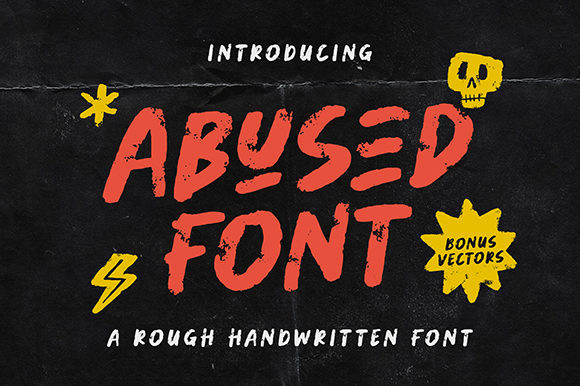
Introducing Abused Font: Unleash Your Designs with a Bold, Rough Textured Display Font
Are you tired of using the same old fonts in your designs? Do you want to add a touch of edginess and assertiveness to your creations? Look no further than Abused Font, a bold, rough textured display font that’s sure to take your designs to the next level. In this article, we’ll explore the features and benefits of Abused Font, and show you how to incorporate it into your design workflow.
What is Abused Font?
Abused Font is a display font that’s designed to make a statement. With its bold, rough textured style, it’s perfect for designers who want to add a touch of grit and attitude to their designs. Whether you’re working on a branding project, a poster, or a website, Abused Font is sure to grab attention and leave a lasting impression.
Key Features of Abused Font
- Bold and Assertive: Abused Font is a bold font that’s designed to make a statement. Its rough textured style gives it a unique, edgy look that’s sure to grab attention.
- Rough Textured Style: The rough textured style of Abused Font gives it a worn, distressed look that’s perfect for designers who want to add a touch of grit to their designs.
- High-Quality Design: Abused Font is designed with high-quality craftsmanship in mind. Its unique style is carefully crafted to ensure that it looks great in any design.
Benefits of Using Abused Font
So why should you use Abused Font in your designs? Here are just a few benefits of incorporating this assertive font into your workflow:
- Adds Edginess to Your Designs: Abused Font adds a touch of edginess and attitude to your designs, making them stand out from the crowd.
- Perfect for Display Text: Abused Font is perfect for display text, such as headings, titles, and posters.
- Increases Readability: The bold style of Abused Font makes it easy to read, even at small sizes.
- Versatile: Abused Font can be used in a variety of design contexts, from branding to advertising to web design.
How to Use Abused Font in Your Designs
Using Abused Font in your designs is easy. Here are a few tips to get you started:
- Pair it with a Simple Font: Pair Abused Font with a simple font to create a striking contrast.
- Use it for Headings: Use Abused Font for headings and titles to add a touch of edginess to your designs.
In conclusion, Abused Font is a bold, rough textured display font that’s perfect for designers who want to add a touch of edginess and assertiveness to their designs. With its unique style, high-quality design, and ease of use, Abused Font is sure to become a go-to font in your design workflow. So why wait? Download Abused Font today and unleash your designs with its bold, rough textured style.
Abused Font is a great addition to any design project, and we highly recommend it to designers and crafters looking to add a unique touch to their work. Add this assertive font to your designs and you will love the outcome.